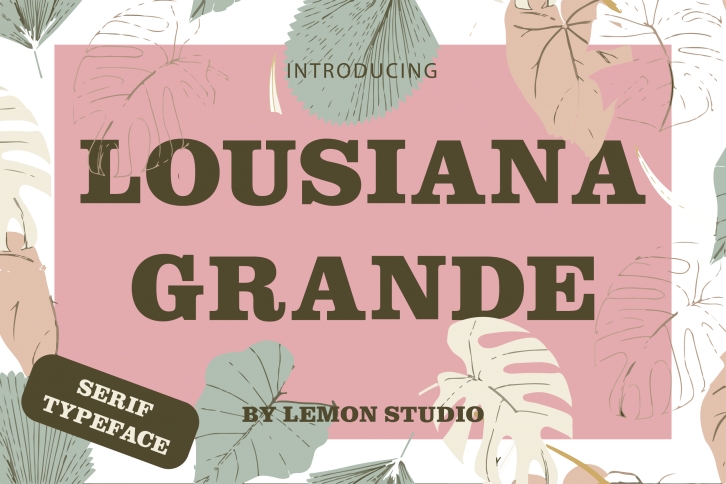
Lousiana Grande is a cool, bold and thick lettered serif font. This font is imposing and features uniquely shaped letters, and as a result, it will easily match a wide range of creations that require a distinct touch.Â